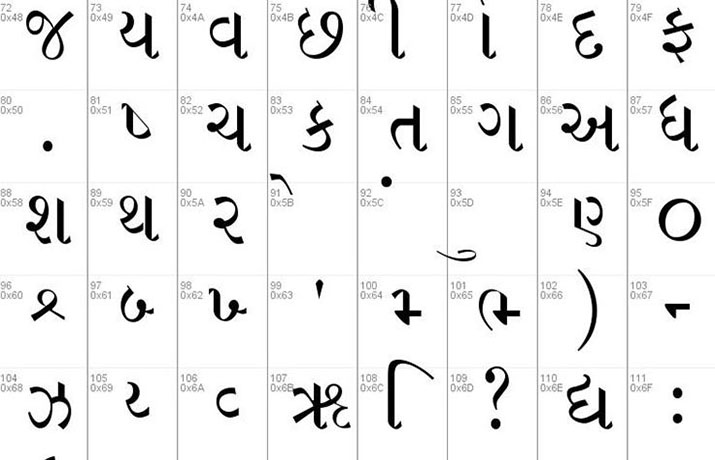
Terafont-chandan Font is a Gujarati language typeface that has a clean and clear texture. It is a great choice for highlighting your design elements.
It belongs to the Terafont family of fonts which includes other fonts like Varun, Ganesh, Indra, and Parth. This legacy font is ideal for documents, emails, messages, belongs, and websites.
Each glyph features a typeface that is uniquely and thoughtfully designed. And if you feel it, you will see that the designer spends a lot of time on it.
“[Terafont-chandan typeface comes in a single version along with True Type file formats. This font includes 203 glyphs and also supports 64 multilingual languages]”.
| Style: | Gujarati, Hindi, Display |
This font supports 64 languages.